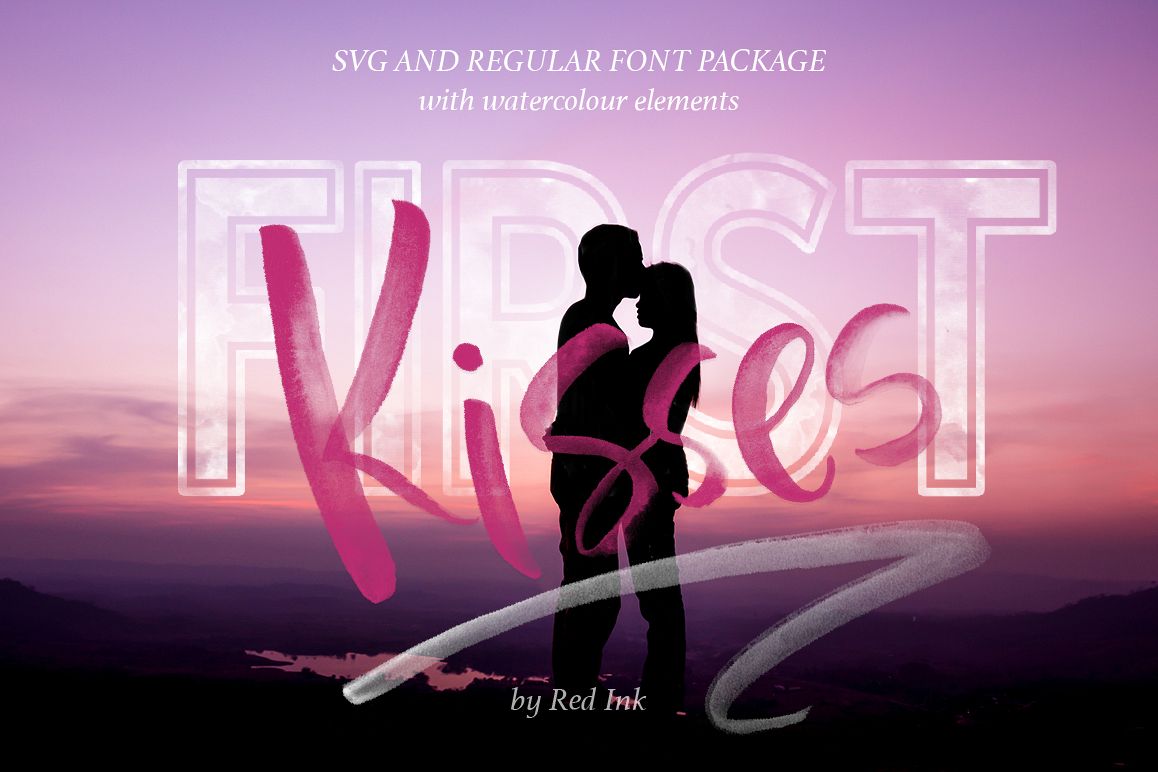
First Kisses. SVG Font Collection.
Hi there! I’m happy to introduce you my new FIRST KISSES Font Collection!
I created two SVG Fonts, with watercolor handdrawn letters and symbols in high resolution. These fonts fully preserved the watercolor texture and transparency of the letters. The full set of alternate letters and double letter ligatures let you to make your designs more realistic and add the real handdrawn feel to your your messages.